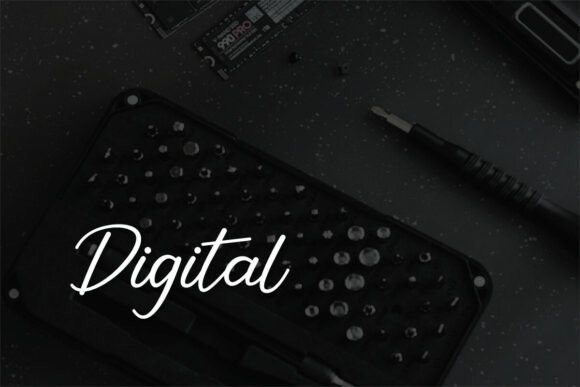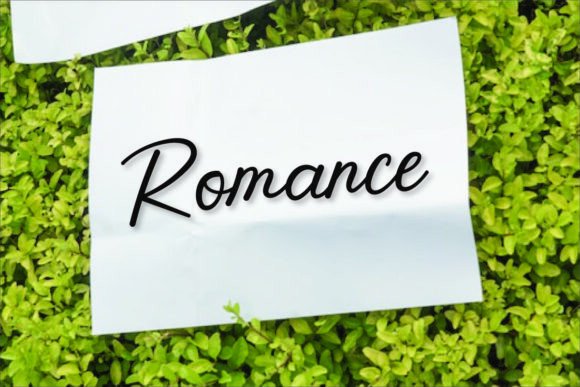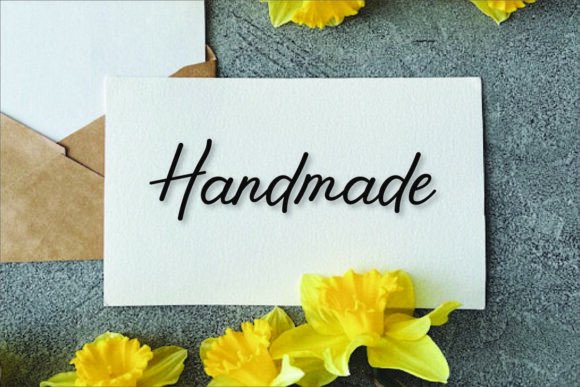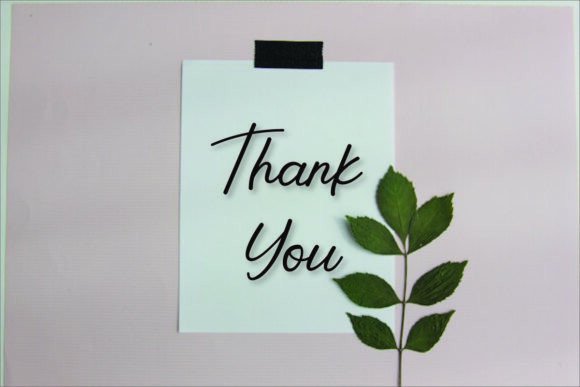
Introduction to Klien Font
Have you ever been stuck on a design project, searching for the perfect font to bring your creative vision to life? I know I have. It’s that moment when you scroll through countless design resources, hoping to stumble upon the one that will elevate your project from good to great. For me, that moment came when I discovered the Klien Font – an elegant and flowing handwritten font that has become my go-to choice for any high-quality design project.
What sets Klien Font apart is its unique blend of classic calligraphy and modern flair. With varied baselines, smooth lines, and stunning alternates, this font is a true gem for designers. Whether you’re working on a free download or a paid project, the Klien Font is sure to make your design stand out. Plus, with its transparent background, it’s easy to use and customize to fit your needs.
So, what makes the Klien Font so valuable for designers? For one, its versatility and sophistication make it perfect for a wide range of creative projects. From branding and marketing materials to digital products and publications, the Klien Font is sure to impress. And with its high-quality design and free download options, it’s accessible to designers of all levels.
Key Features of Klien Font
- High-quality design resource ideal for creative projects, offering a unique and modern look.
- Features a clean and minimalist design, with a clear and readable font style.
Honest Review: Klien Font
As a designer, I’m always on the lookout for high-quality design resources to elevate my creative projects. Recently, I stumbled upon the Klien Font, and I’m excited to share my honest review.
- The Klien Font offers a sleek and modern aesthetic, making it perfect for a variety of design applications.
- The transparent background option allows for seamless integration with any design element.
- The font selection is relatively limited, with only a few styles to choose from.
- The font may not be suitable for very small text sizes, as the lines can become blurry.
Overall, I’m impressed with the Klien Font’s design and functionality. While it may not be the most extensive font collection, it’s a great addition to any designer’s toolkit. With its high-quality design and free download option, it’s definitely worth checking out for your next creative project.
Tips for Getting the Most Out of Klien Font
For the best results, use Klien Font in combination with a high-quality image or graphic. You can also experiment with different font sizes, colors, and styles to add visual interest to your design. Additionally, consider using a transparent background to create a more modern and sleek look.
Klien Font is ideal for creative projects, such as logos, business cards, and social media graphics. It’s also great for presentations, documents, and even website design. With its high-quality and versatile design, Klien Font is a must-have for any design resource collection.